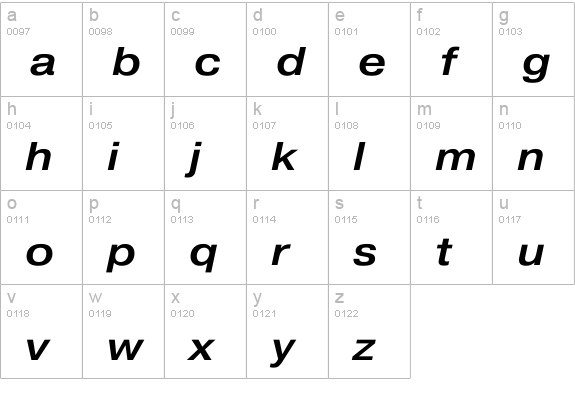
Pragmatica Extended Medium Oblique is a balanced, medium-weight, extended-width, italic variant in the Pragmatica typeface family \xE2\x80\x94 well suited to sub-headlines, navigation, and balanced editorial work.
Pragmatica Extended Medium Oblique font is a versatile and modern typeface that balances elegance with readability. Its slanted design adds a touch of sophistication to any project while maintaining a practical and pragmatic appeal. The medium weight strikes the perfect balance between boldness and flexibility, making it suitable for a wide range of uses. This font is the ideal choice for conveying a professional and polished look in various design projects, from branding to editorial design. Its extended character set ensures support for multiple languages and a variety of typographic needs. Whether used in headlines, body text, or logos, Pragmatica Extended Medium Oblique font is sure to make a lasting impression. Best of all, this font is available for free download at FontsMarket.com, allowing designers and creatives to access this premium typeface without any cost. Don't miss out on the opportunity to enhance your projects with the timeless appeal of Pragmatica Extended Medium Oblique font.